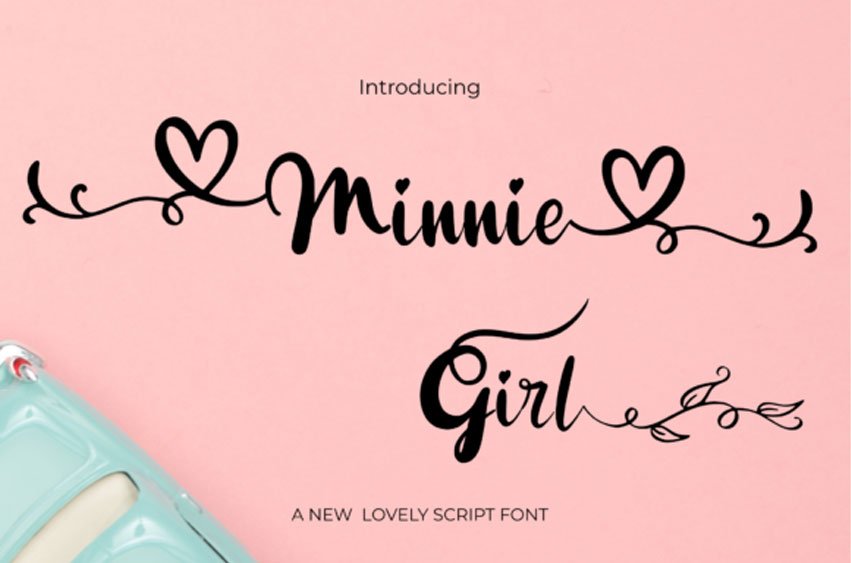
Minnie Font
Minnie Font is a lovely font. This font was designed by handwriting, and it has a modern and unique form of calligraphy, the writing style is very natural
Can be used for various purposes such as headings, logos, wedding invitations, t-shirts, letterhead, signage, labels, news, posters, badges, etc.